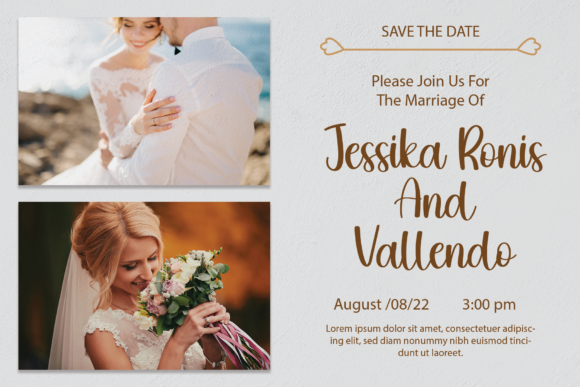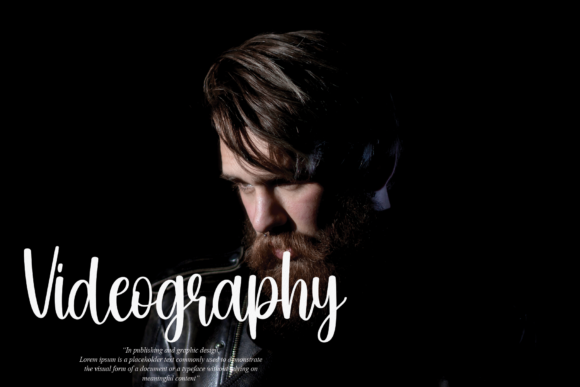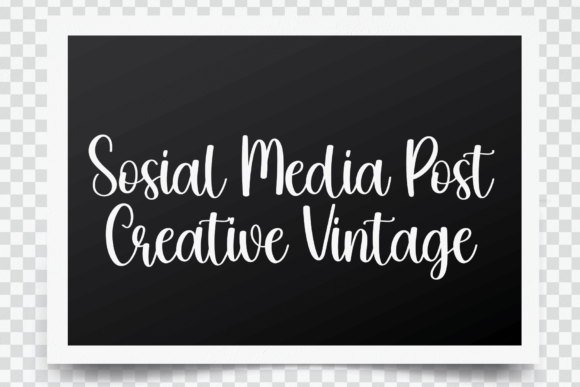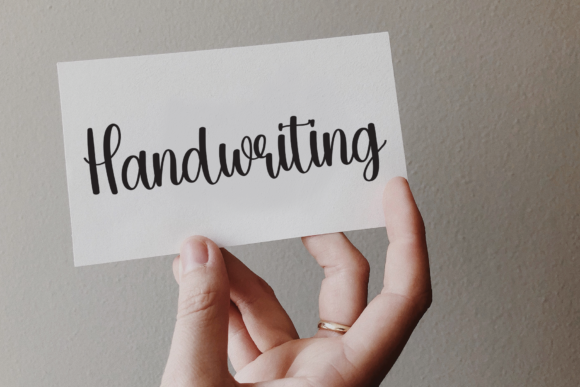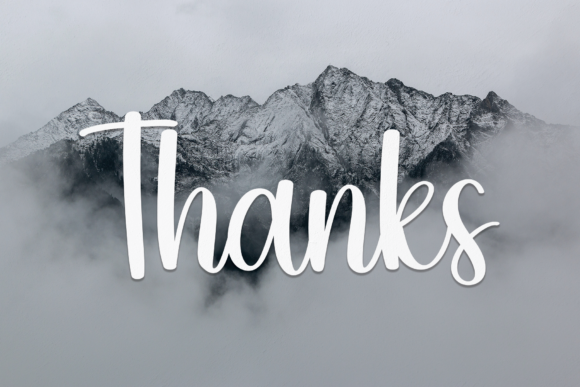
Rain Font
About Rain Font
Rain is a well-balanced script font carefully created with a touch of elegance. Whether you’re looking for fonts for Instagram or calligraphy scripts for DIY projects, this font will turn any creative idea into a true piece of art!